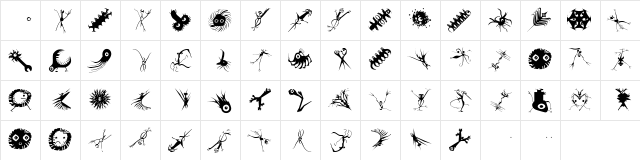
NewEarthCitizens Regular
Design Context for NewEarthCitizens Typeface
NewEarthCitizens is a composed and adaptable typeface that performs quietly and consistently across a wide range of design contexts.